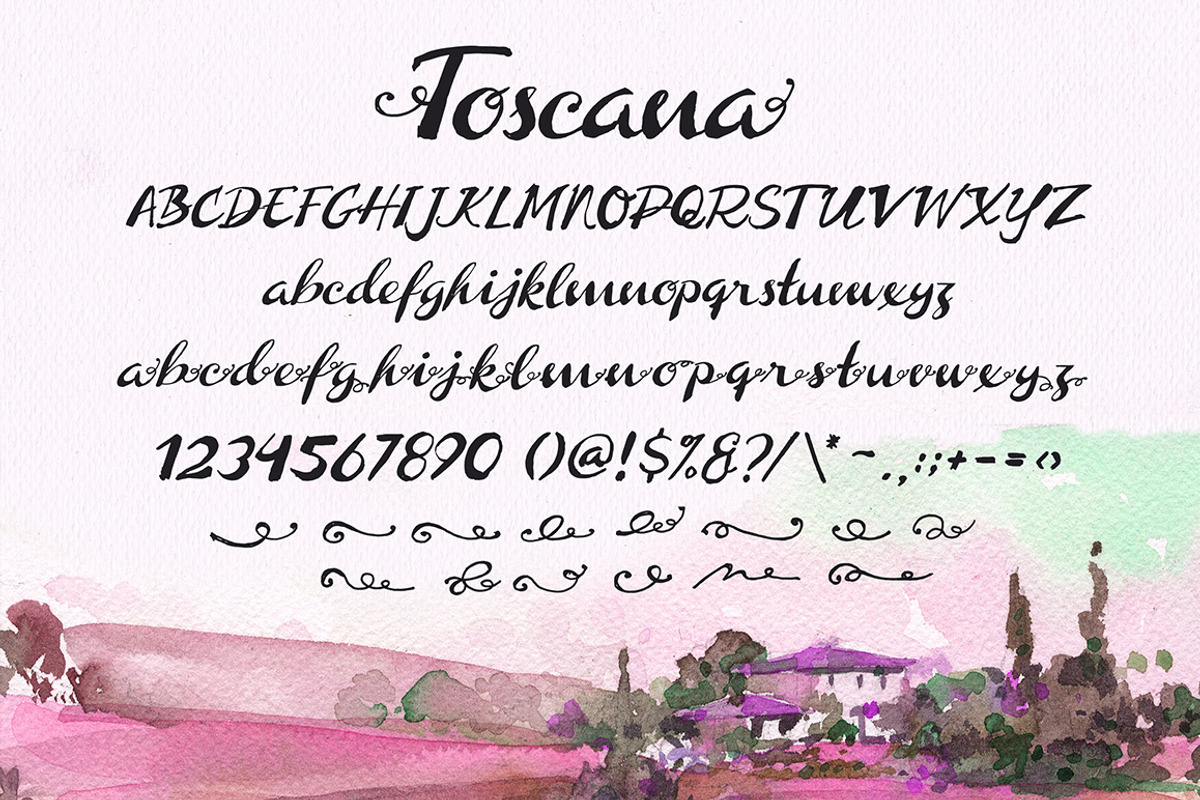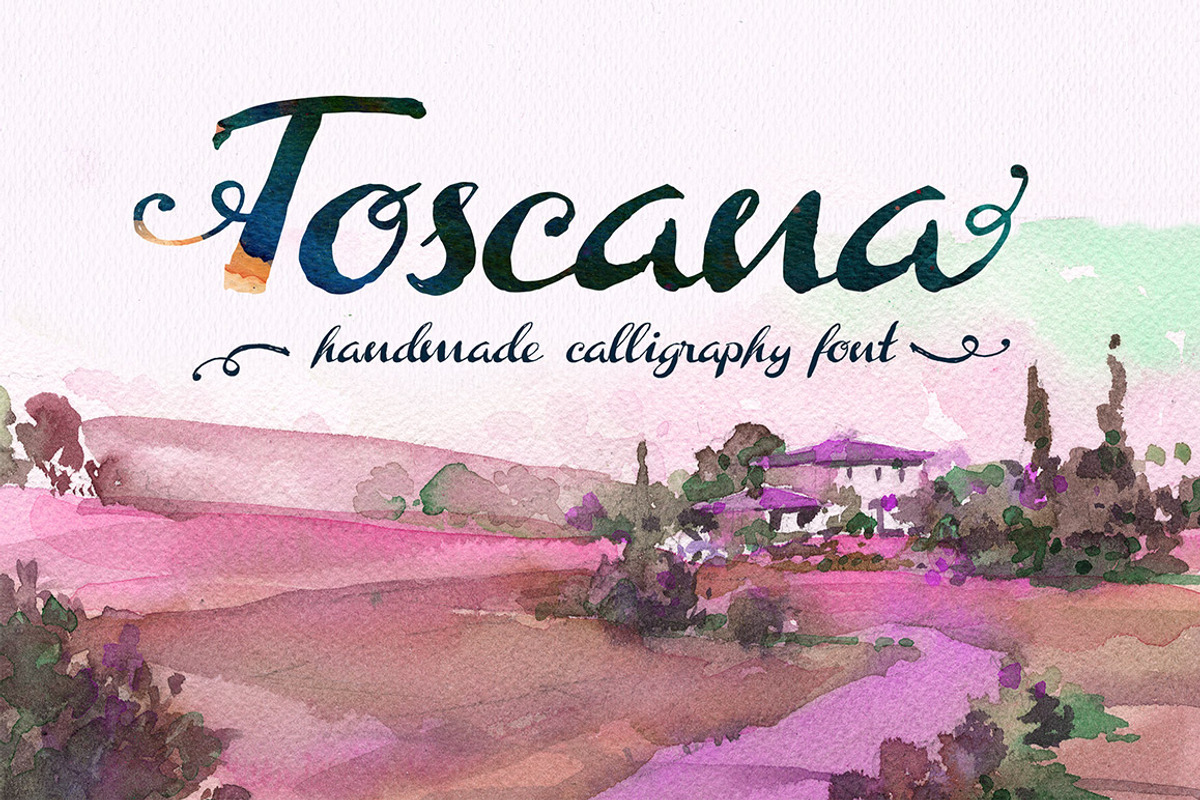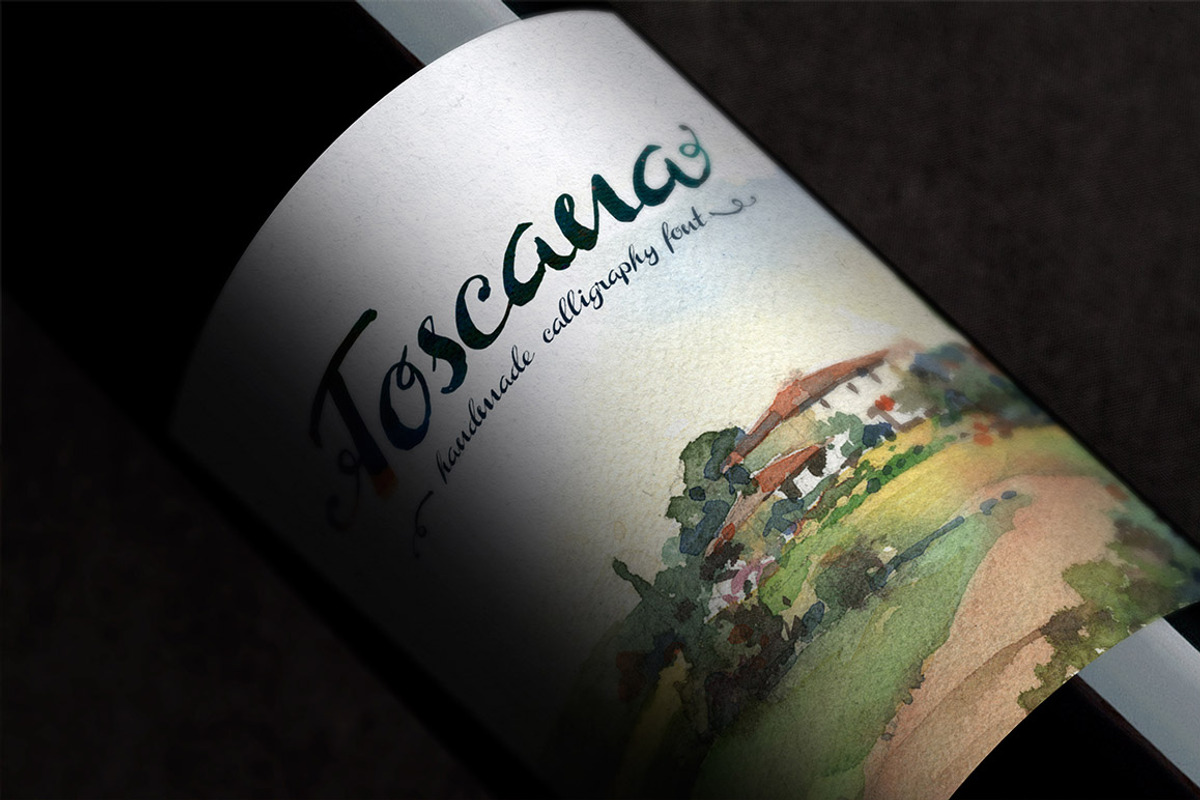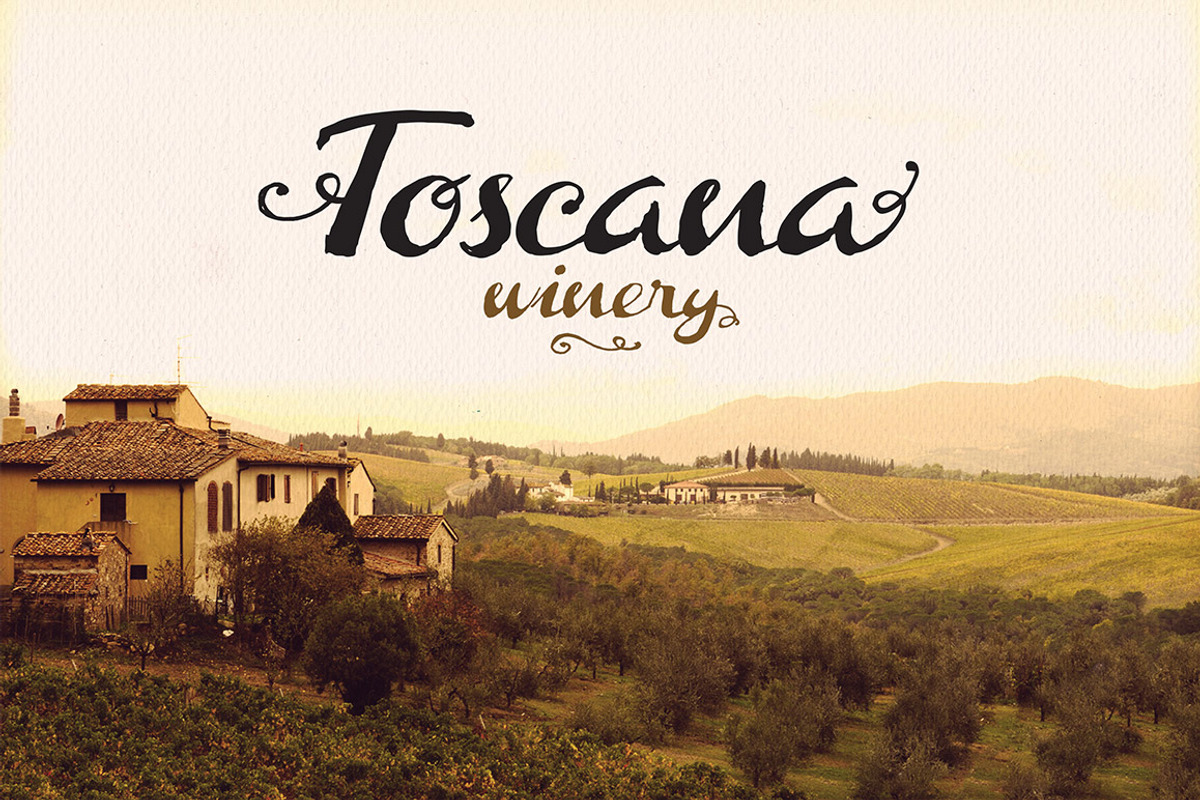
Toscana Font
Toscana Font by DesignSomething is a font selected for branding, posters, packaging, typography.
- This font contains uppercase and lowercase with alternate decorative end letter.
Why Toscana Font is worth a look
Toscana Font by DesignSomething fits naturally into Branding, posters, packaging, typography.